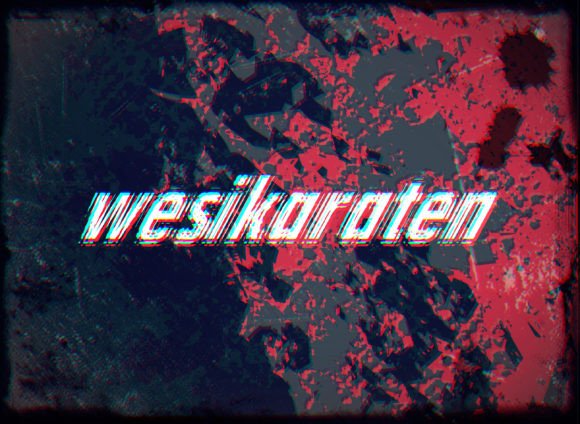
Feast your eyes on the electrifying Wesikaraten font, a remarkable creation from the visionary mind of yogart, exclusively designed to ignite your projects with an explosive burst of charisma. This display font transcends the ordinary, captivating your audience with its unapologetic boldness and daring strokes.
Experience the raw power of Wesikaraten's sharp edges and commanding curves, masterfully crafted to leave a lasting impression. Its strong and masculine presence exudes confidence, making it an ideal choice for projects that demand attention and refuse to blend in. Unleash your creativity and let Wesikaraten's boldness amplify your message, leaving an unforgettable mark on your audience.
Step into a world of cinematic grandeur with Wesikaraten, the font that elevates your projects to epic proportions. Its striking appearance is a perfect match for movie posters, book covers, logos, and branding that aims to make a statement. Imagine your words leaping off the screen, commanding attention with Wesikaraten's dynamic energy.
Journey through the cosmos with Wesikaraten, a font that embodies the boundless expanse of the universe. Its out-of-this-world charm is ideal for projects related to astronomy, science fiction, and space exploration. Let your imagination soar as Wesikaraten propels your words to new galaxies, capturing the essence of the cosmos in every letter.
With Wesikaraten at your fingertips, conquer the world of gaming with a font that embodies strength, courage, and adventure. Its bold strokes and sharp angles evoke the thrill of battle, the excitement of exploration, and the determination to overcome any challenge. Unleash the hero within your projects as Wesikaraten empowers your words to resonate with gamers worldwide.
Dive into the depths of the ocean with Wesikaraten, a font that captures the allure and mystery of the underwater world. Its fluid lines and elegant curves mimic the graceful movements of marine life, while its bold presence commands attention amidst the vastness of the sea. Dive deep into your creativity and let Wesikaraten's enchanting allure transport your projects to the ocean's depths.